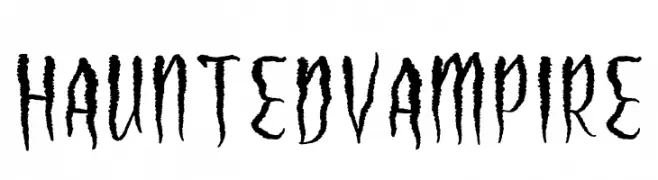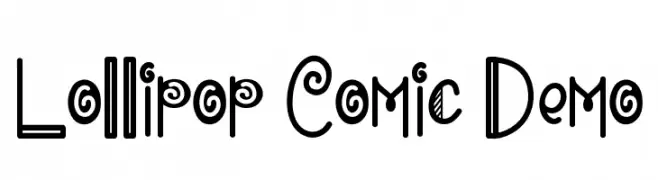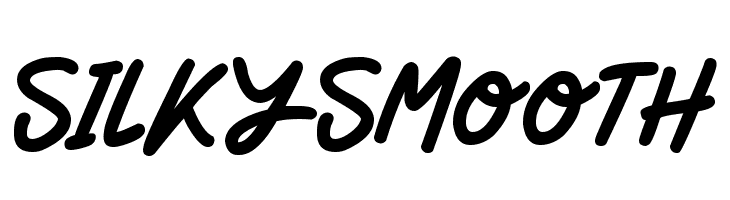
A bold, geometric, and abstract font with a futuristic, alien-like appearance.
A spooky, jagged font perfect for horror and Halloween themes.
A bold, playful, and interconnected font with a whimsical style.
A casual, handwritten cursive font with a fluid and dynamic style.
A hand-drawn, textured font with a rustic, vintage appeal.
A decorative font with bold letters encased in intricate circular frames.
A playful and whimsical font with rounded and angular elements, perfect for informal projects.
Abstract geometric symbol set with bold circular enclosures.
A geometric, linear font with a modern and futuristic style.